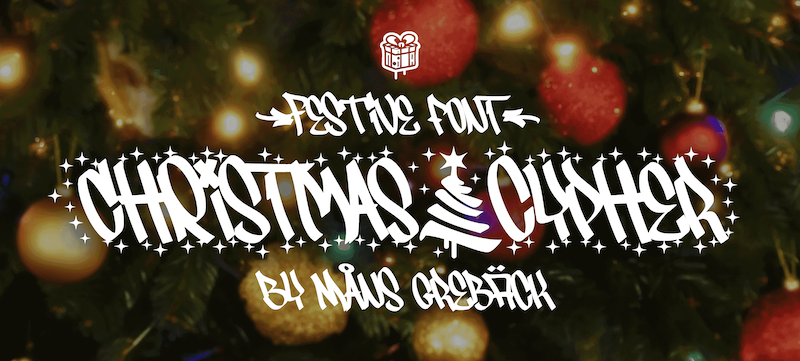
Preview and download Christmas Cypher Font. Created by Måns Grebäck in Holiday Christmas styles with Free for personal use license.
NOTE: This font is for PERSONAL USE ONLY! To purchase a commercial license, visit: http://mn.sg/christmas-cypher Christmas Cypher is a street Xmas font. This graffiti-inspired font embodies a dash of urban flair, with calligraphic strokes infused with a sparkling twist of Christmas elements. Use the included Icon font to make Christmas symbols such as stars, Santas, gifts and reindeers. Use parenthesis symbols () [] {} to make stars around any word. Example: {Hiphop}[Style] For questions, please visit www.mansgreback.com/faq |